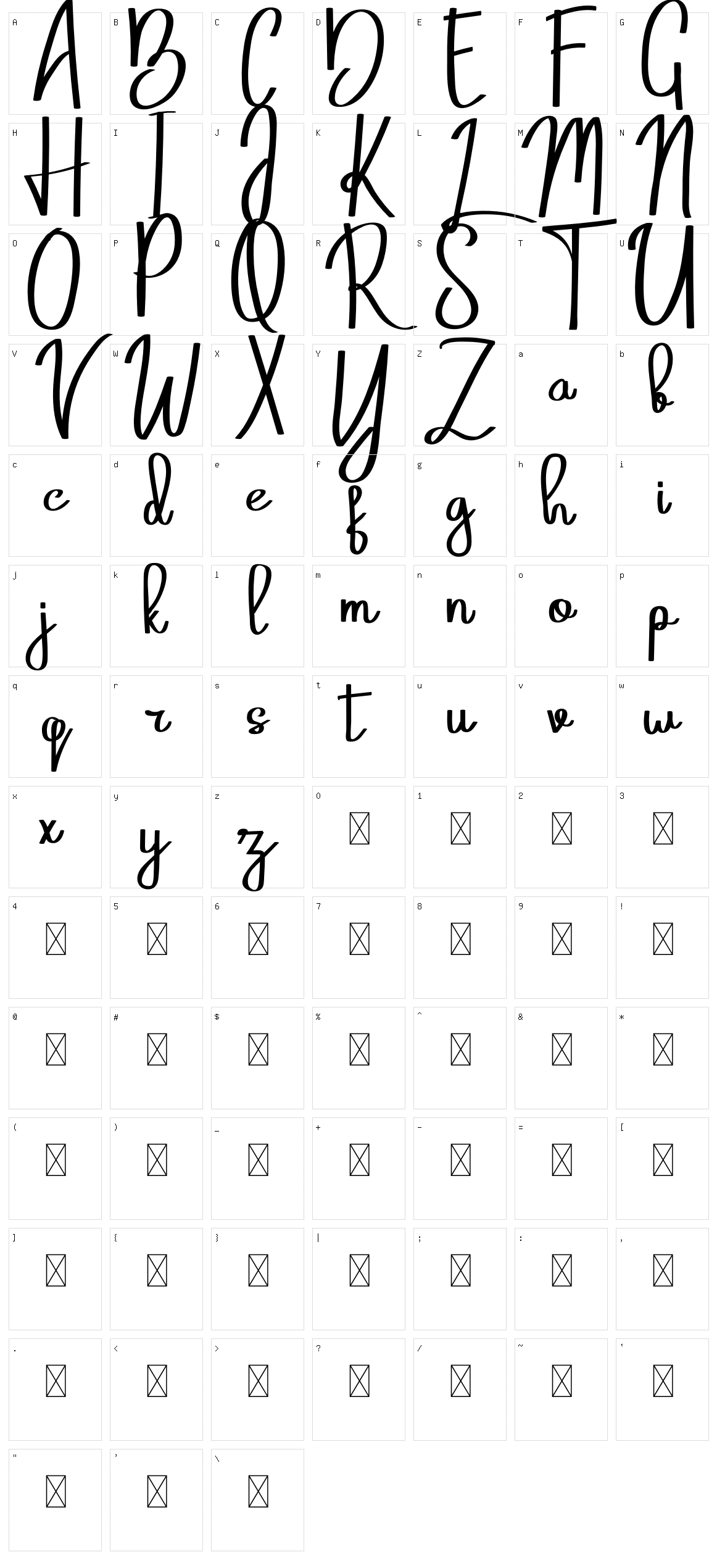
The free font Belatoni is carefully designed by Eknoji Studio, showcasing a thoughtful balance of creativity and usability and falls under the Script font style. When you download the ZIP file, it contains only 457.63 KB of font files, making it lightweight and quick to download. Please review the license details below to understand permitted usage and distribution rights. If license information is not available, we recommend using this font for personal projects only or contacting the author directly for commercial usage permissions.
The Belatoni by EKNOJI